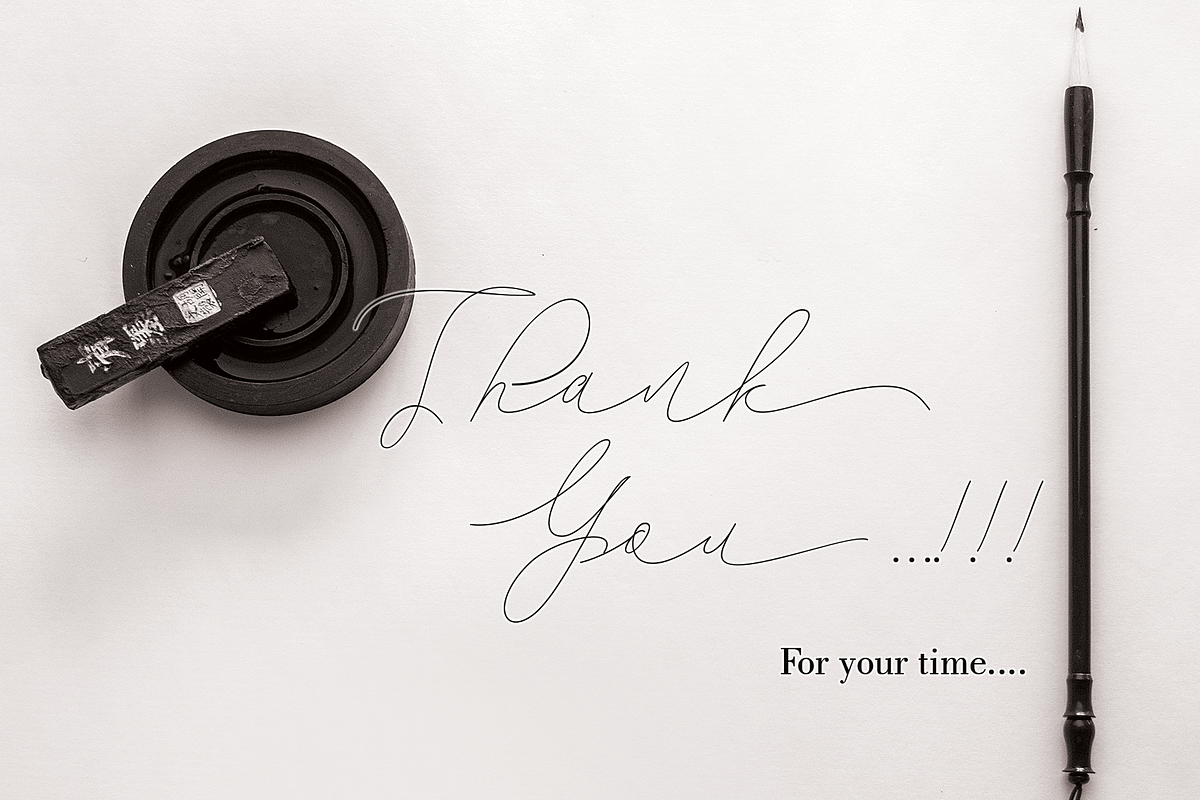
City Spire
City Spire monoline a beautiful work is present in the form of a beautiful monoline line to make various kinds of crafting needs, both in the form of branding, invitation and so on ... you certainly can understand what kind of needs are in accordance with this form of writing, I hope this can help in completing your craft assignments ... don't forget to look at some of the other excellent products such as: -https: //creativemarket.com/halimstudio/3031711-Virgita-script -https: //creativemarket.com/halimstudio/2348052-Jelisa -https: //creativemarket.com/halimstudio/2595973-Kaitlyne -https: //creativemarket.com/halimstudio/3013053-Julian-Thomas,